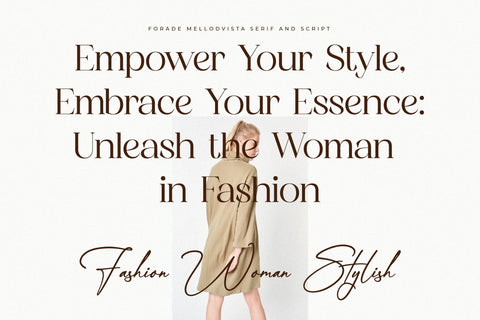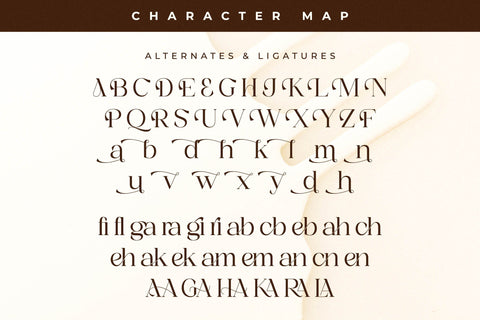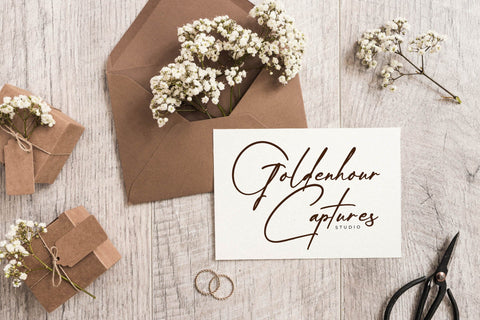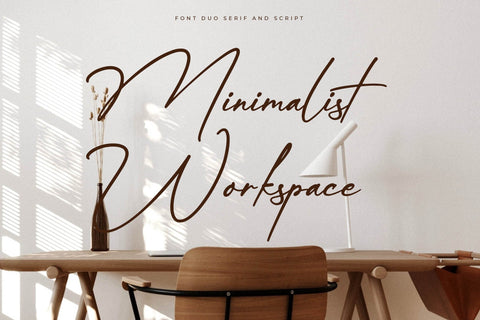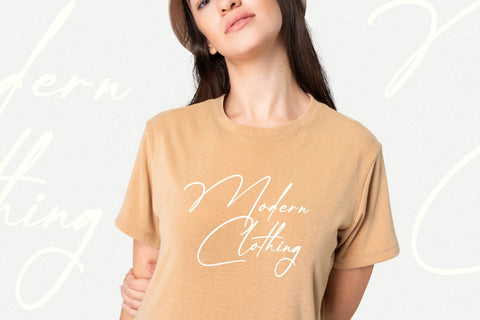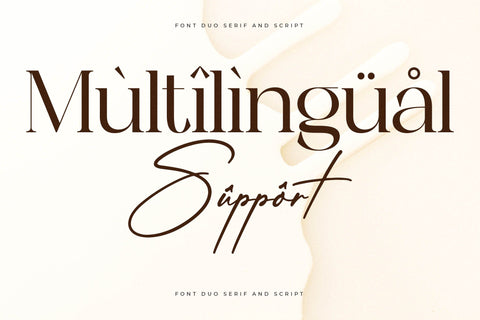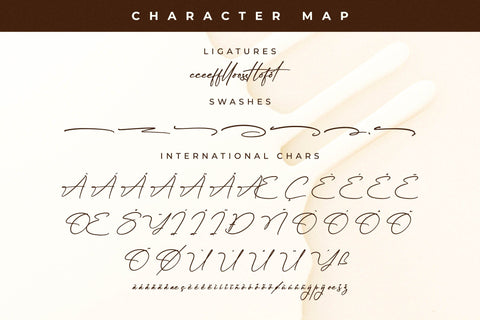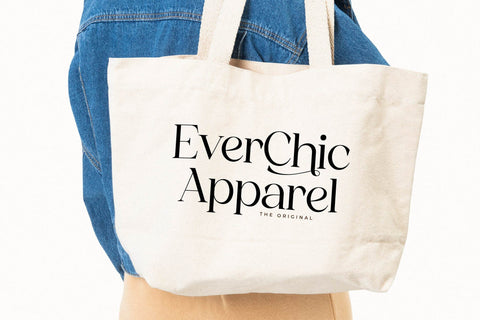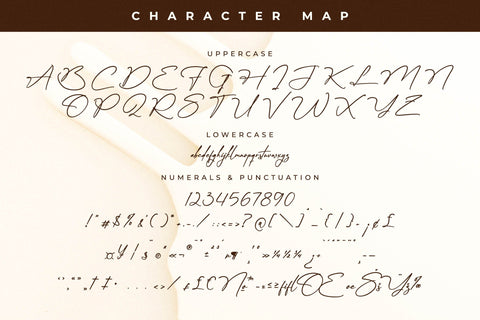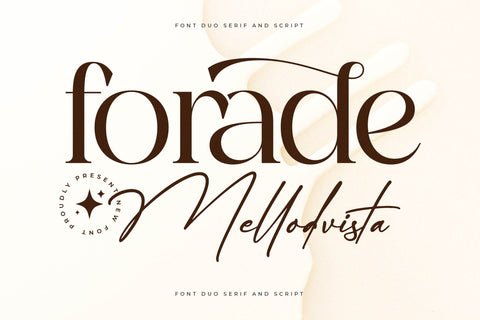
Forade Mellodvista Font Duo
Proudly present Forade Mellodvista Font Duo , created by Storytype,
A serif and script typeface that has own unique style & modern look.